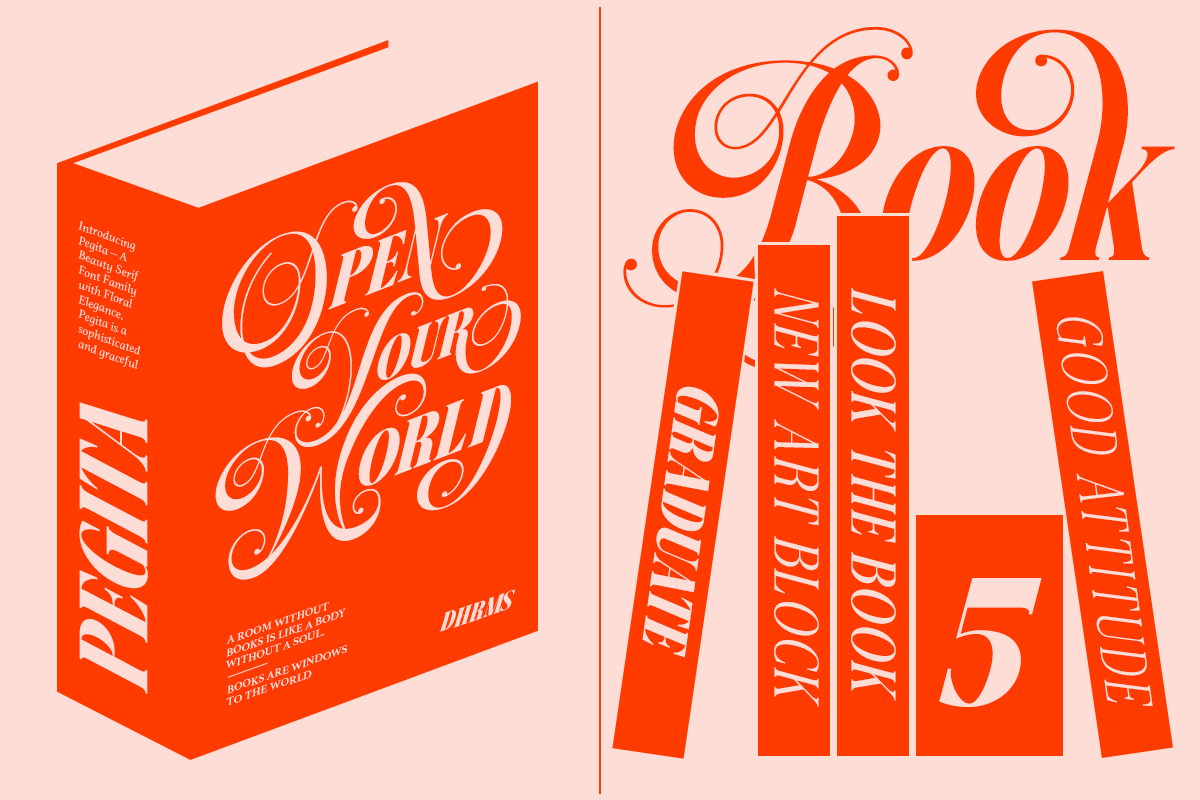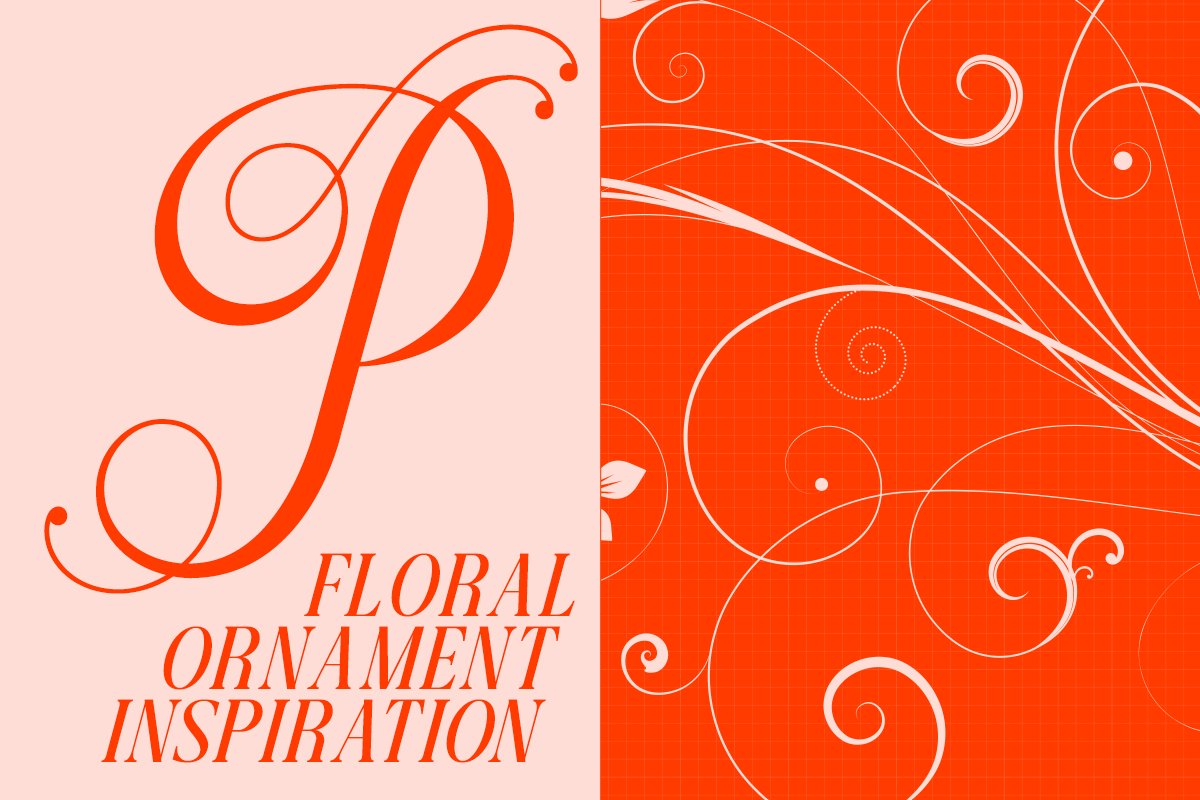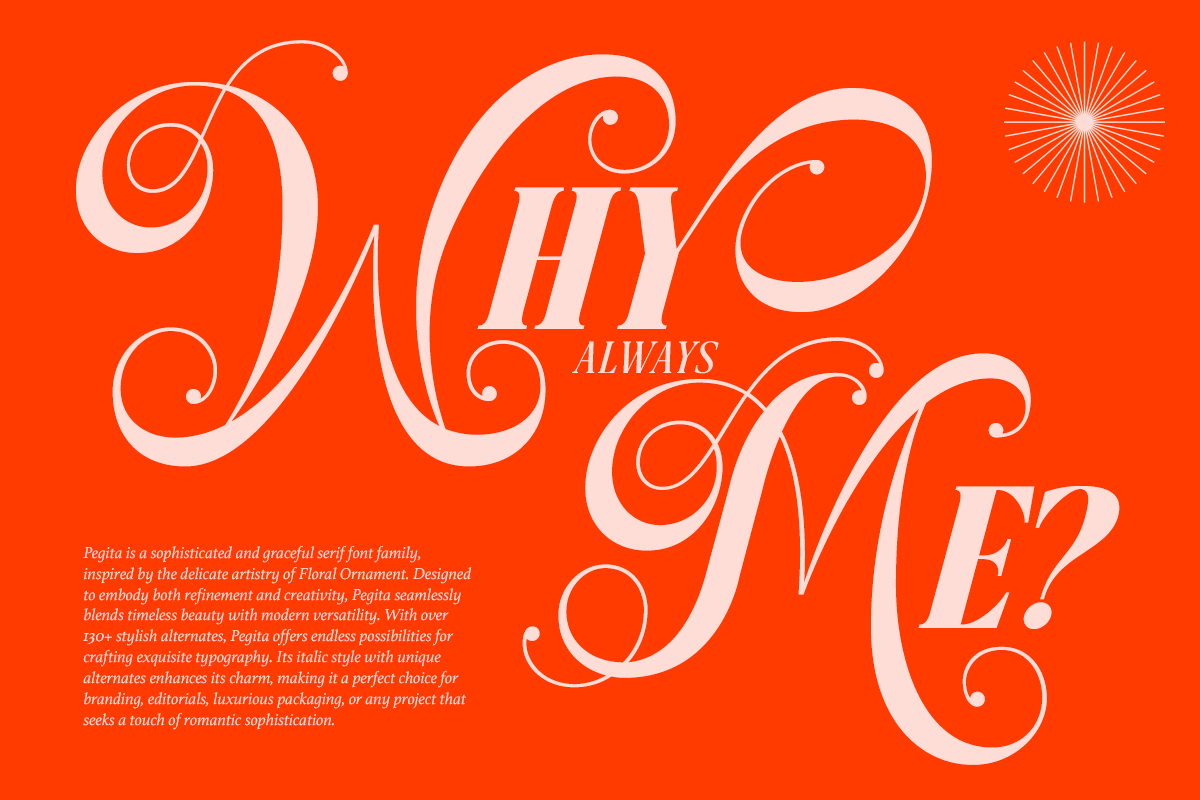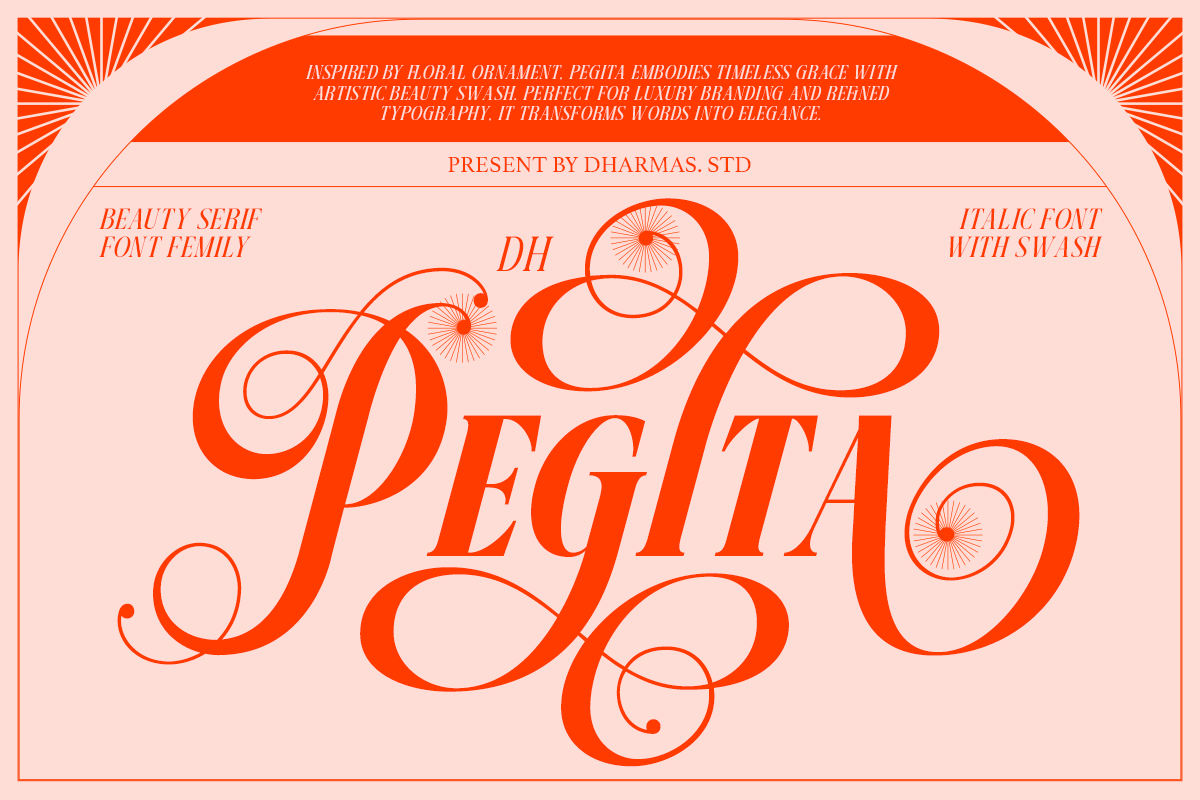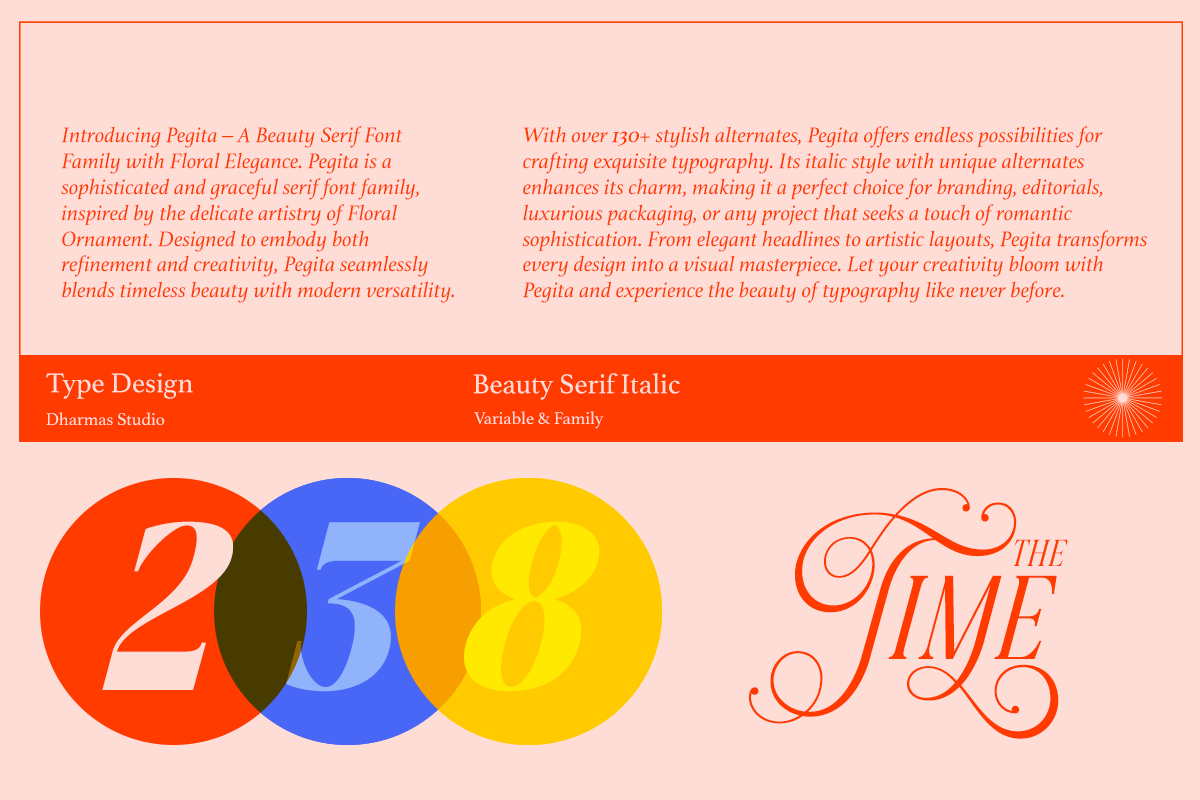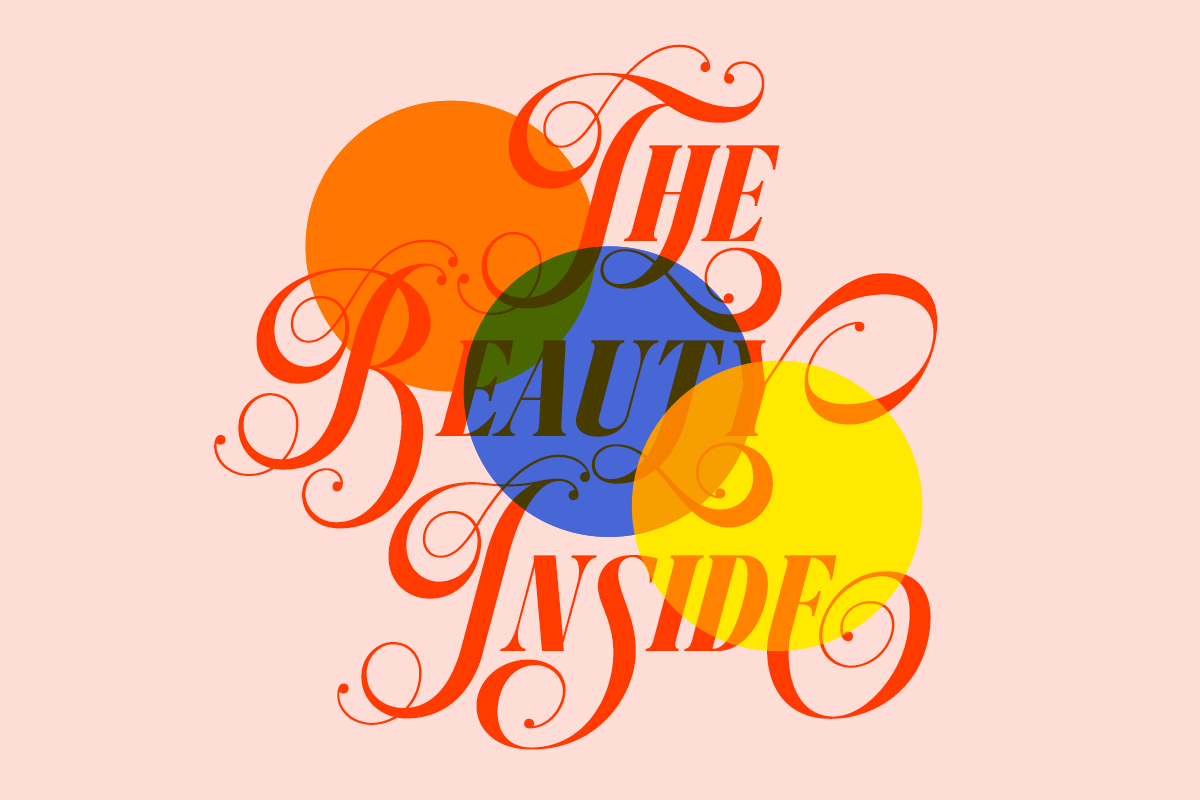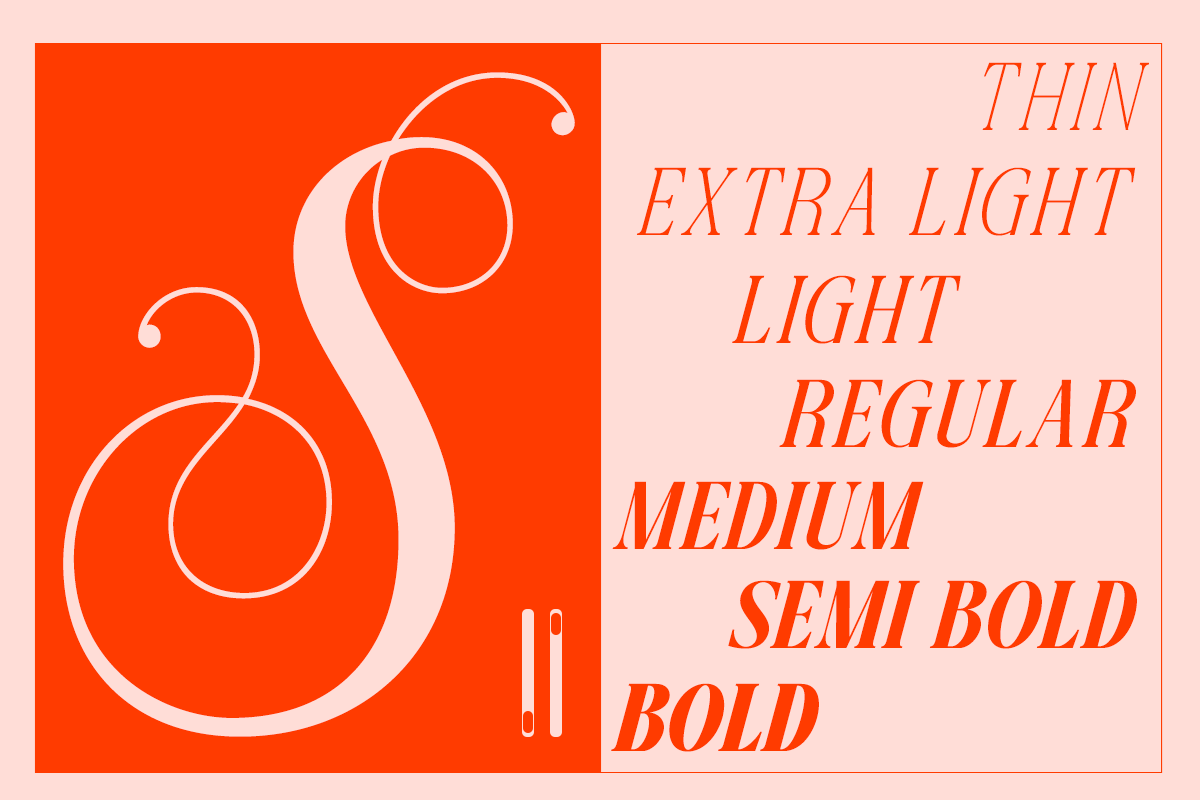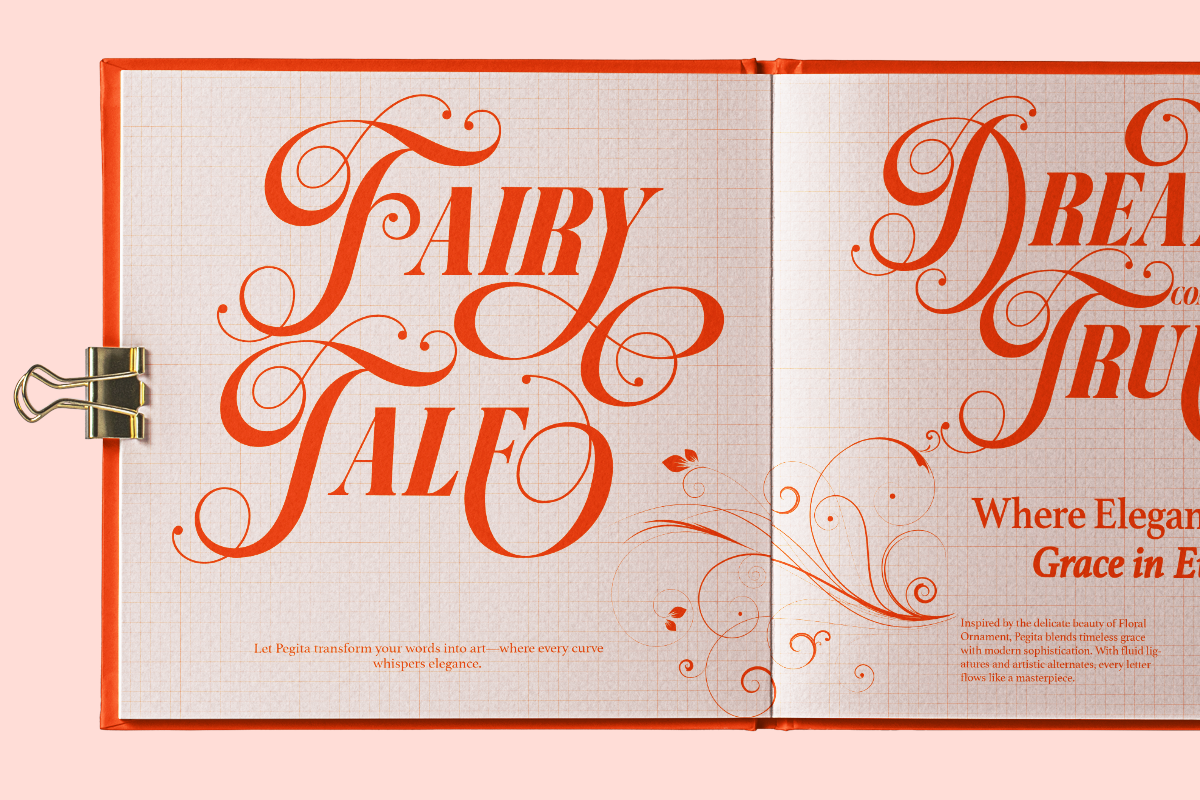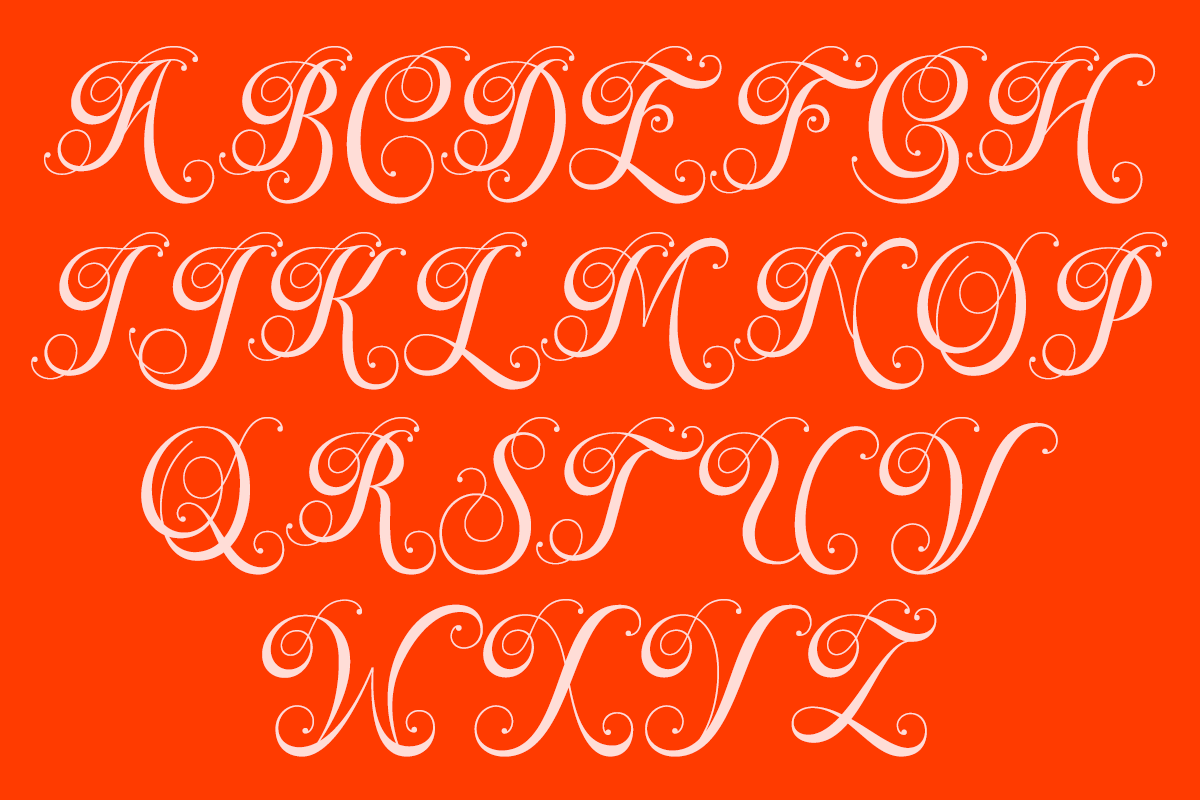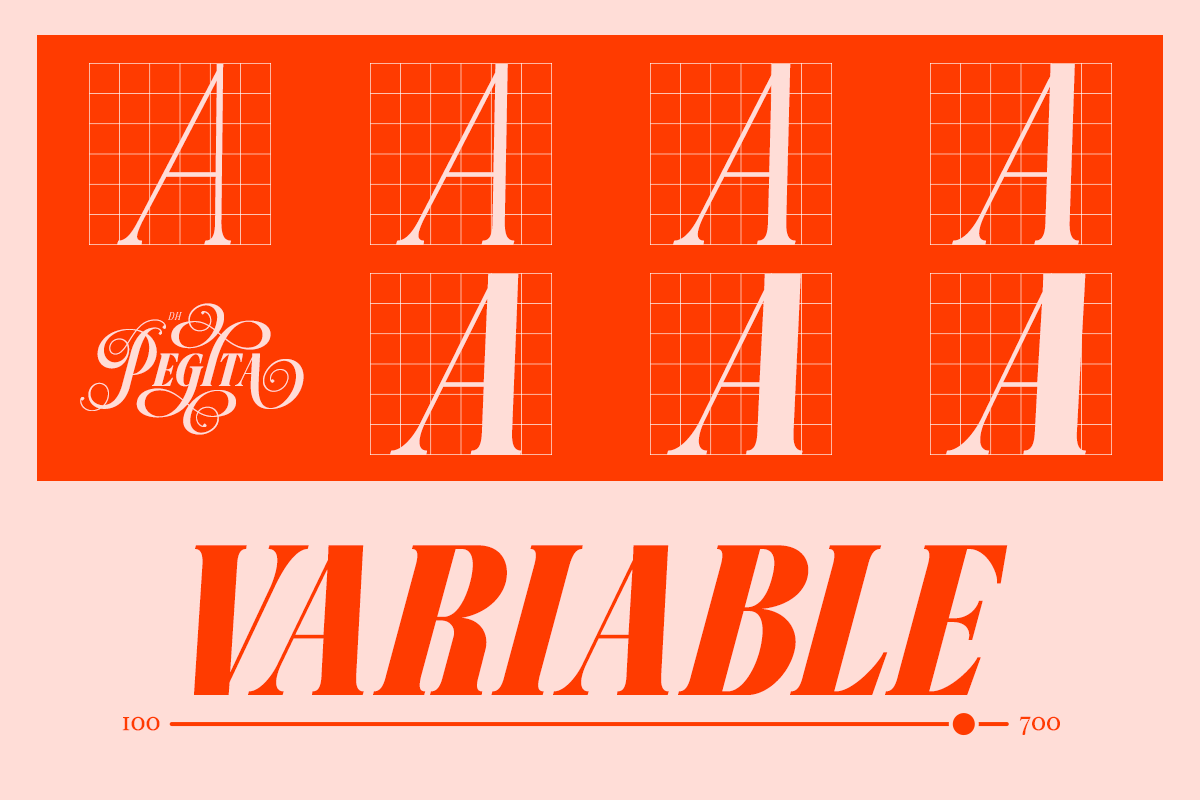
Dh Pegita - 7 Beauty Floral Typeface
Dh Pegita is a refined serif display font created for luxury branding, beauty packaging, jewelry logos, fashion labels, wedding stationery, and editorial publishing. Designed for logos, packaging, invitations, and magazine headlines, Dh Pegita creates a sophisticated and timeless visual identity. Inspired by delicate floral details and classic serif aesthetics, the overall look feels elegant, refined, and memorable.
Dh Pegita Font Features:
7 Weights: Thin, Extra Light, Light, Regular, Medium, Semi Bold, Bold
130+ Swash Alternates
Letters, numbers, symbols, punctuation, special alternates